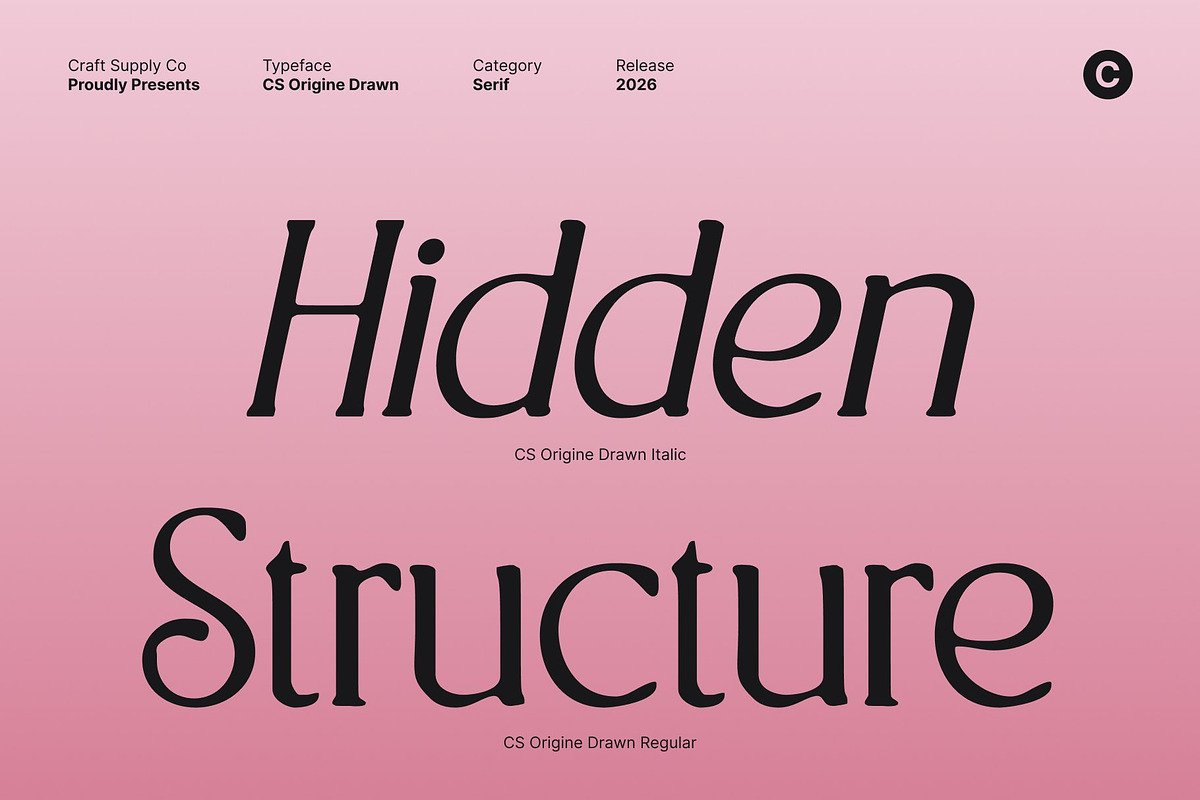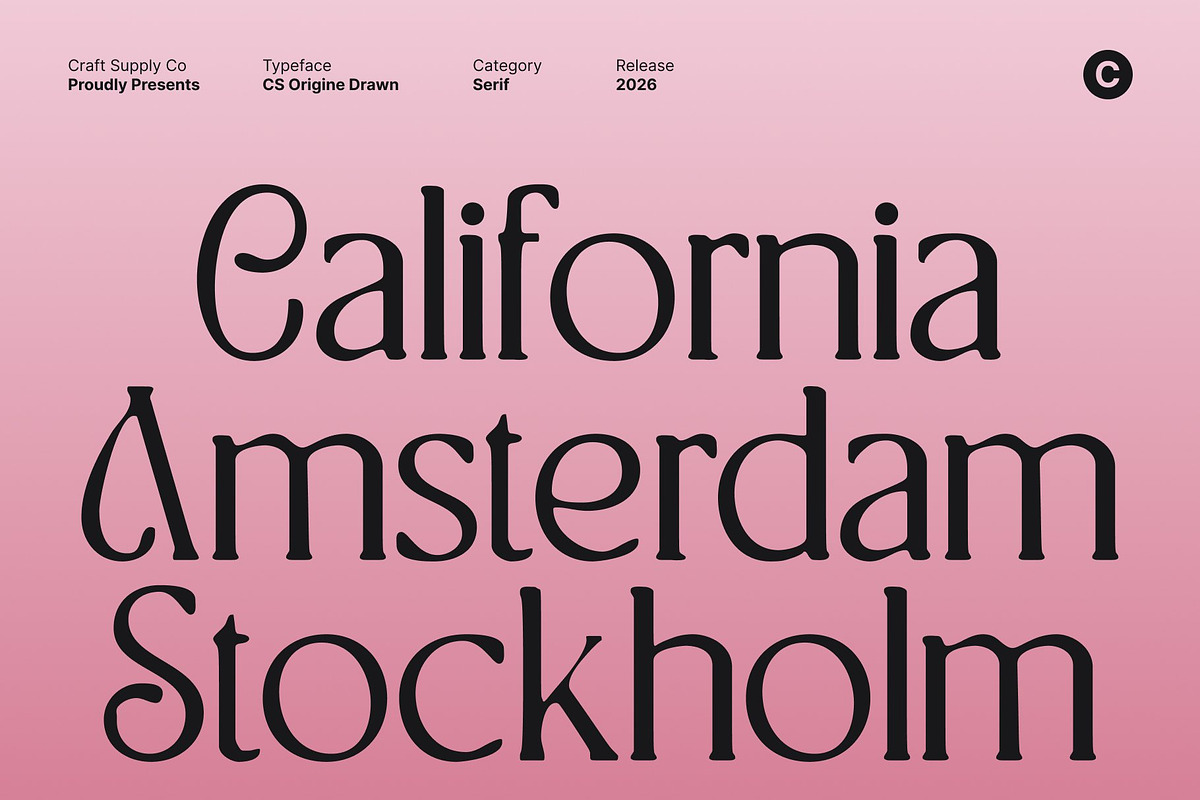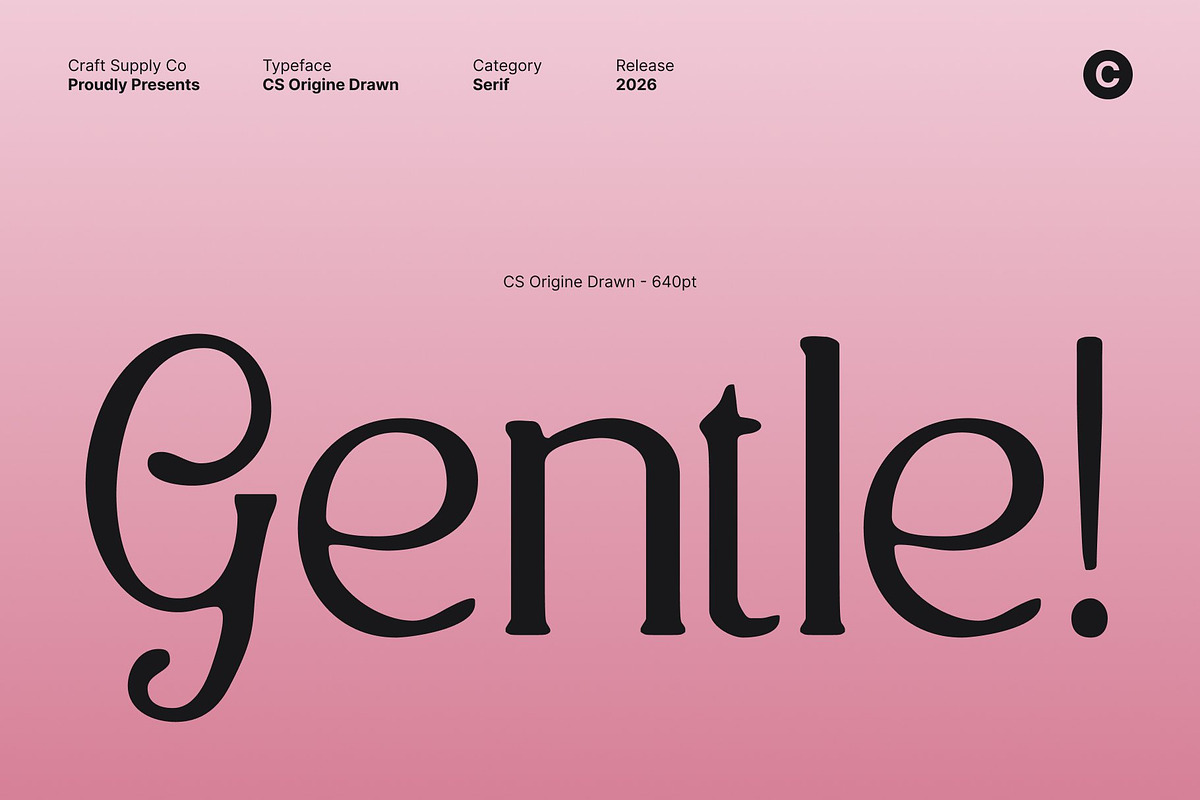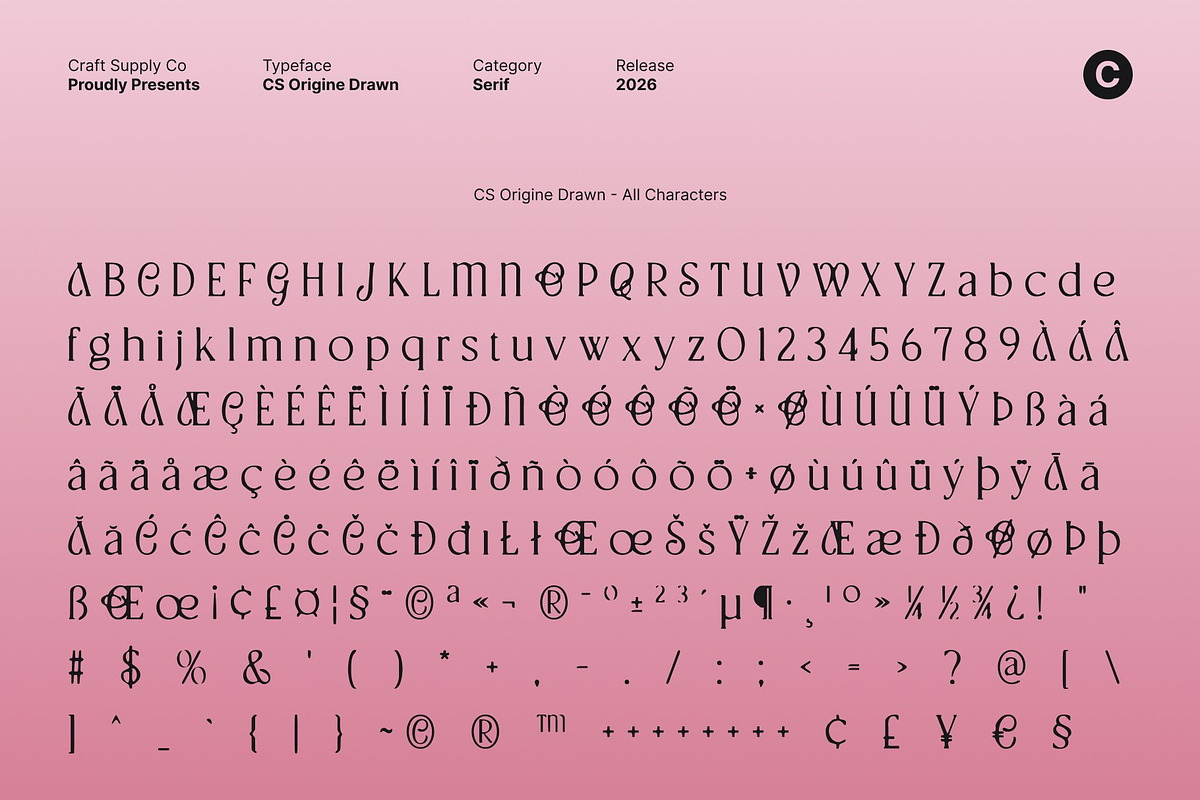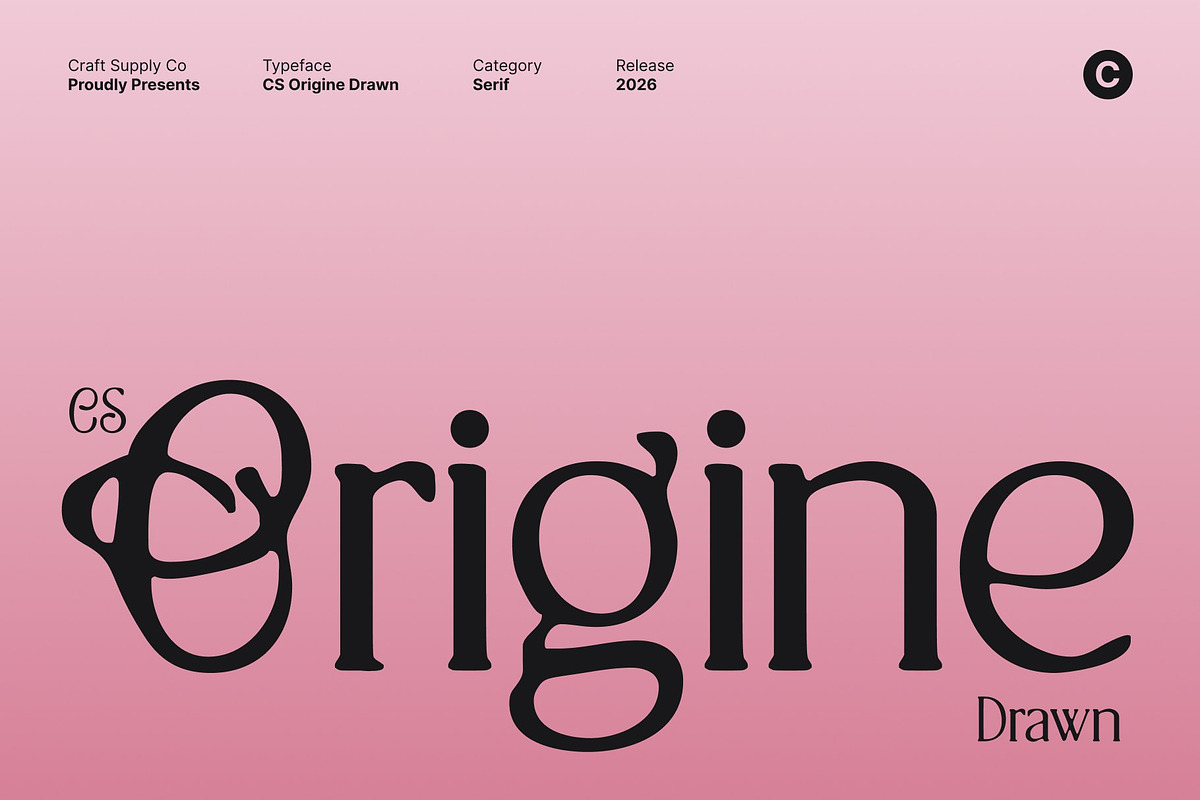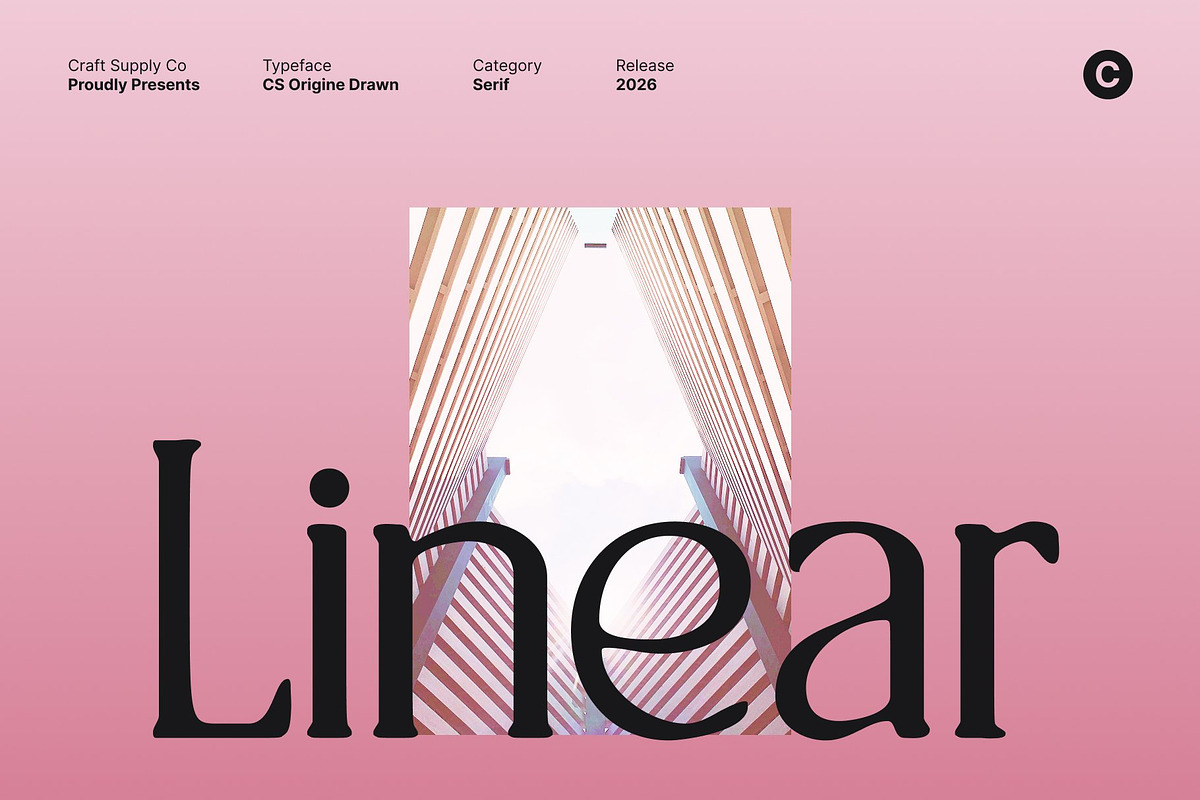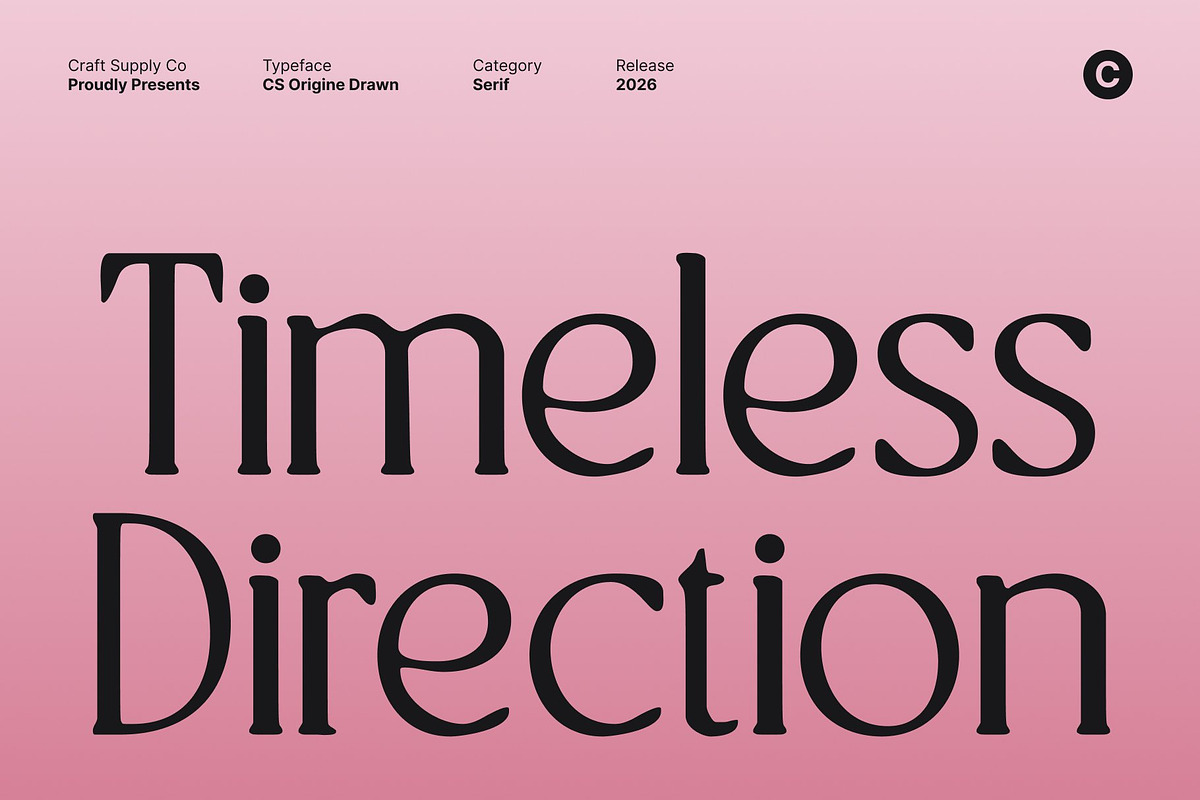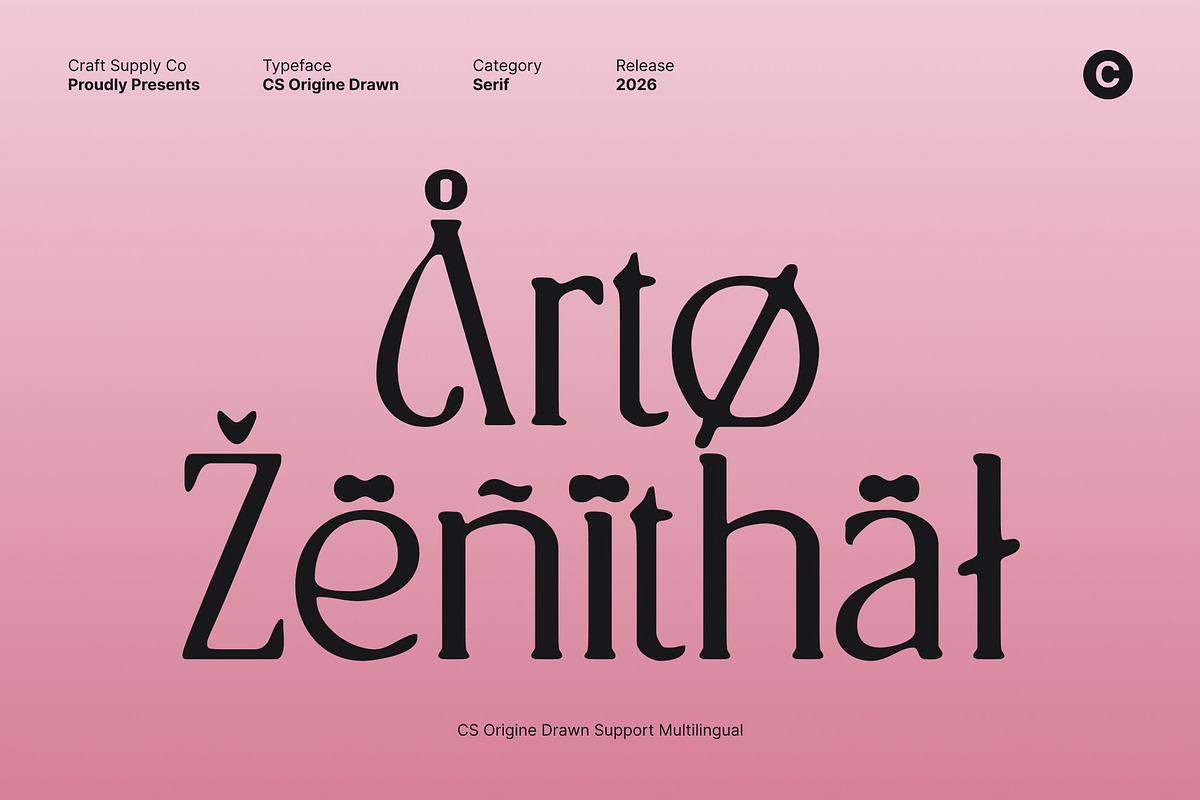
CS Origine Drawn
CS Origine Drawn – Elegant Serif with Exotic Curves and Hand-Drawn Sophistication
Exotic Serif Design with Refined Modern Elegance This is an elegant serif font that blends exotic, flowing curves with a sleek modern structure. Its distinctive letterforms feature graceful transitions, refined serifs, and sculpted details, while the drawn effect adds a soft, organic touch. The result is a typeface that feels polished, expressive, and quietly luxurious.
Clean Balance Between Style and Clarity Each character is carefully shaped to achieve harmony between decorative beauty and contemporary readability. Smooth strokes and slender proportions create an airy, refined appearance, while subtle hand-drawn nuances prevent the design from feeling rigid. This balance allows the font to perform beautifully in both expressive headlines and elegant text compositions.
Ideal for Premium Branding and Elegant Identities This font excels in projects that demand sophistication, creativity, and visual distinction. From luxury branding and editorial layouts to invitations and refined packaging, the font communicates professionalism with an artistic edge. Its exotic yet minimalist personality gives brands a unique and memorable presence.
Perfect for High-End Creative and Editorial Design Whether used for elegant posters, magazine layouts, stylish social media visuals, or premium promotional materials, this font adds grace and confidence to every detail. Its fusion of classic serif influence, sleek modern form, and handcrafted refinement makes it a timeless choice for high-end creative work.